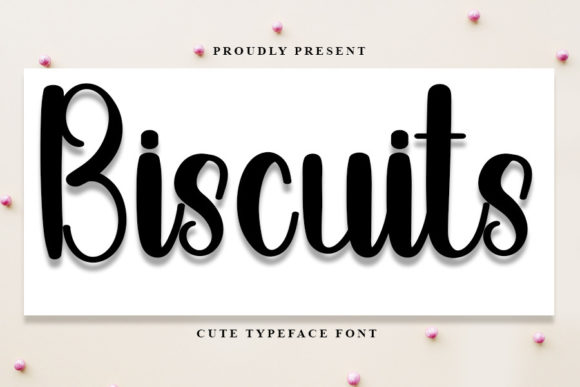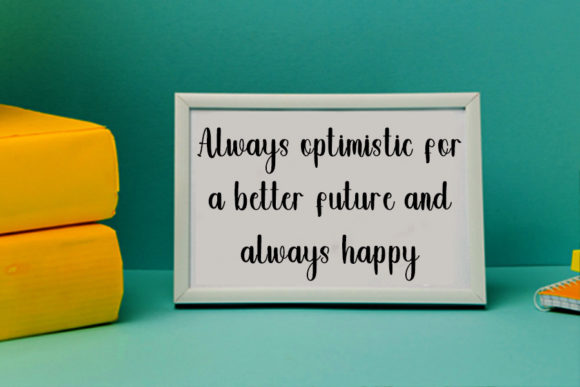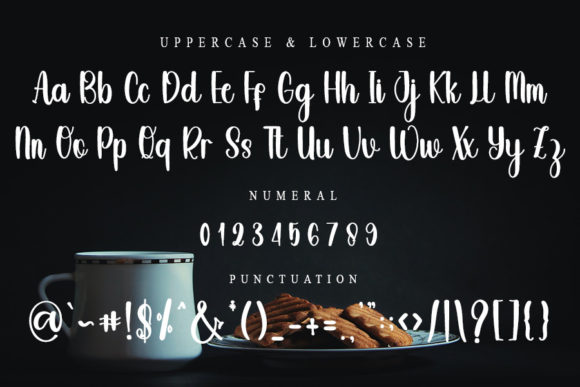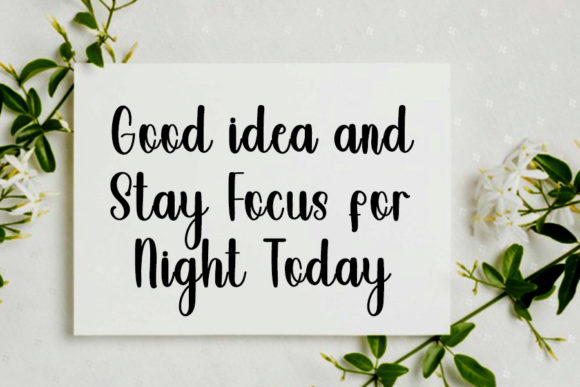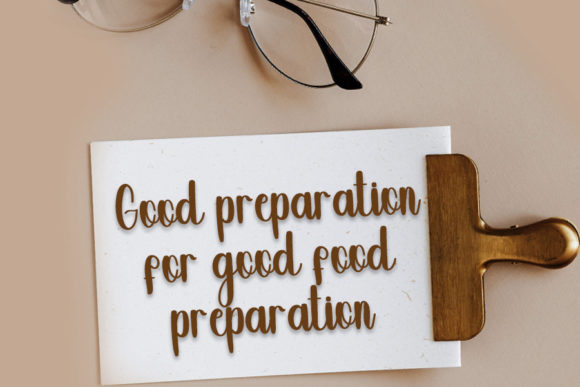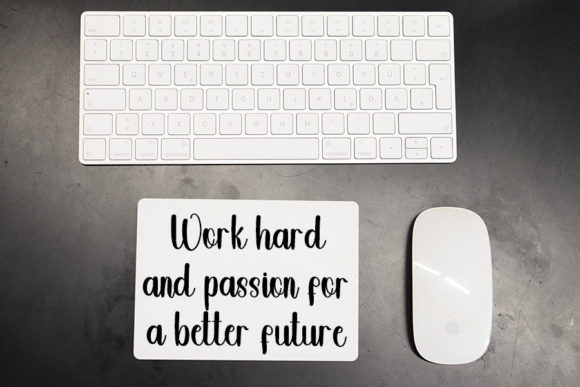
Biscuits Font
About Biscuits Font
Biscuits is a sophisticated and modern handwritten font that seamlessly blends the timeless charm of classic calligraphy with a contemporary twist. Its balanced and varied strokes strike the perfect equilibrium between elegance and readability, making it an ideal choice for a wide range of design projects.
With a nod to the traditional art of calligraphy, Biscuits exudes an air of refined beauty that adds a touch of luxury to any creation. Whether you’re working on logos, branding, invitations, packaging, or other design endeavors, this font’s impeccable form is sure to captivate and leave a lasting impression.
Biscuits’ versatility shines through its carefully crafted details, making it equally suitable for both bold headlines and intricate scripts. The font strikes a harmonious balance between the fluidity of hand-drawn strokes and the structured appeal of modern typography, allowing you to experiment with various design approaches.
The font’s contemporary atmosphere, combined with its elegant curves and gentle swashes, adds a dynamic and stylish element to your projects. It evokes a sense of sophistication while maintaining an approachable and friendly character, making it suitable for a diverse range of themes and aesthetics.
Whether you’re looking to add a touch of class to your brand, create visually stunning wedding invitations, or infuse your designs with a refined and timeless essence, Biscuits is the perfect choice. Its PUA encoding ensures easy access to a plethora of glyphs and swashes, giving you the freedom to customize and personalize your designs to perfection.
Let Biscuits elevate the beauty of your projects and inspire creativity with its exquisite form and contemporary allure.